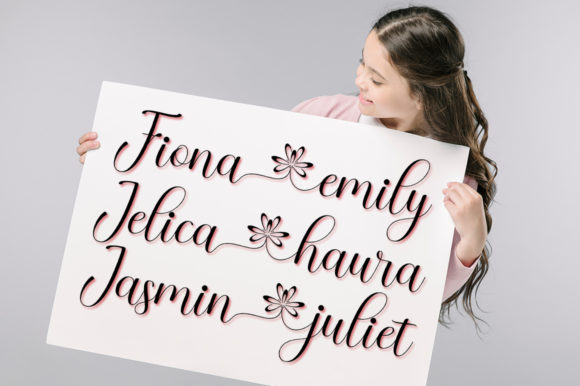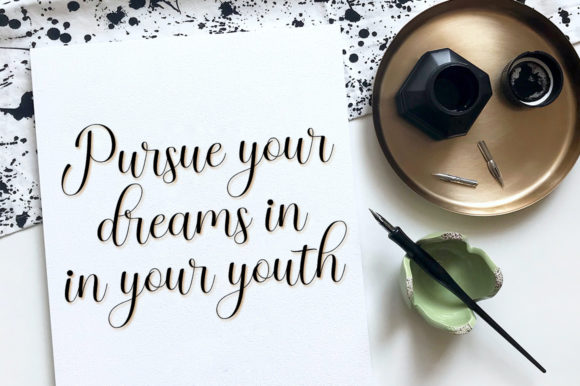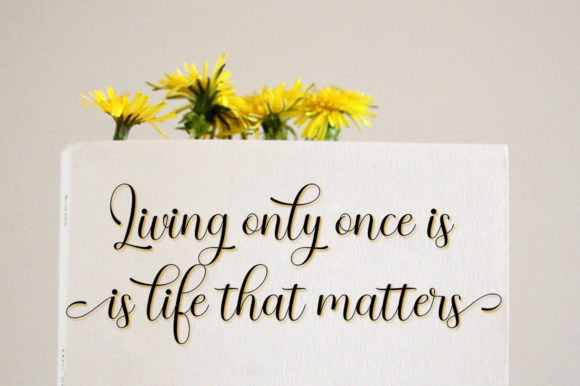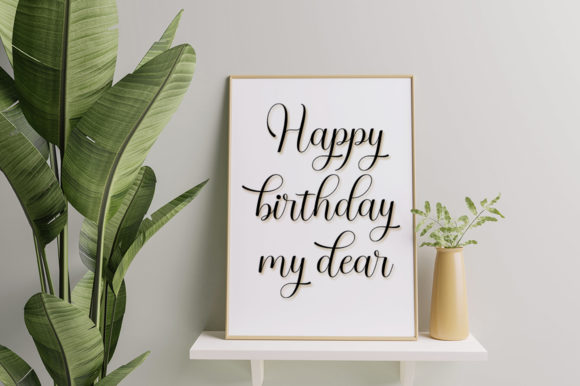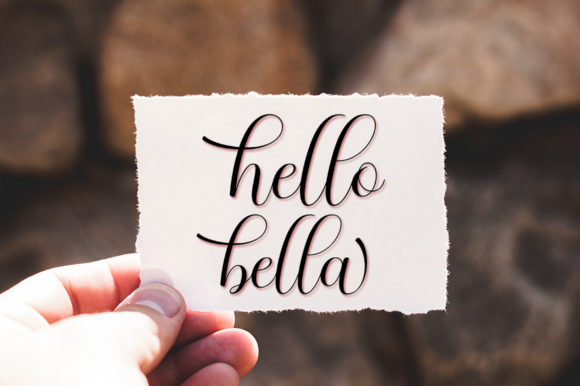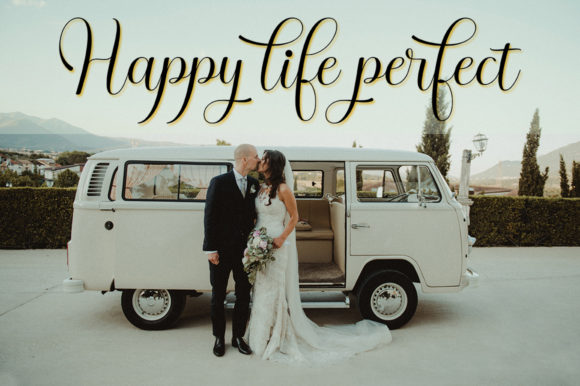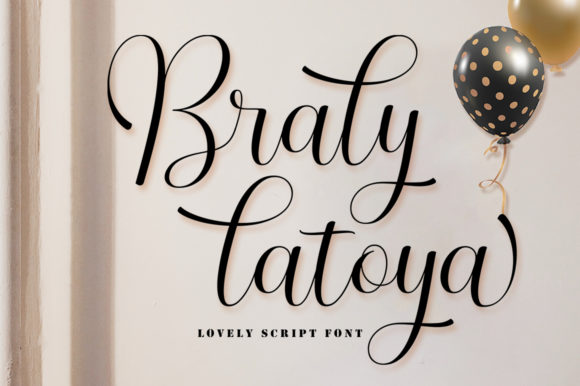
The Braly Latoya Font: A Delicate and Elegant Handwritten Masterpiece
Have you ever been in the middle of a design project, and suddenly, you just can’t seem to find the right font? I recall a particularly frustrating experience while working on a branding project for a boutique client. The logo needed to exude elegance and sophistication, but no matter how many fonts I tried, nothing seemed quite right. That’s when I stumbled upon the Braly Latoya font, and it was love at first sight! 💕
A Personal Review of Braly Latoya
As a designer, I’m always on the lookout for fonts that can elevate my projects. Here’s my honest review of Braly Latoya:
• ✨ Delicate and elegant handwritten style that’s perfect for projects requiring a touch of sophistication
• ✅ PUA encoded, making it easy to access all glyphs and swashes
• ✅ Well-rounded letters that add a touch of warmth to any design
• ✨ Highly versatile and can be used for a variety of projects, from branding to crafting
While Braly Latoya is an amazing font, there are a few things to keep in mind:
• ⚠️ Some users might find the font a bit too delicate for certain projects, such as large-scale signage or bold headlines
• 🤔 Limited availability of bold or condensed variations, which might limit its use in certain design scenarios
The Designer Inspiration Behind Braly Latoya
While the true story behind Braly Latoya’s creation is unknown, it’s easy to imagine that the designer was inspired by the beauty of handwritten script. Perhaps they spent countless hours pouring over vintage letters and typography, searching for the perfect blend of elegance and whimsy. Whatever the inspiration, Braly Latoya is a true masterpiece that deserves to be celebrated.
What is PUA encoding, and how does it benefit Braly Latoya? PUA (Private Use Area) encoding allows designers to access a wide range of glyphs and swashes, making it easier to customize and personalize their designs.
Is Braly Latoya suitable for large-scale signage or bold headlines? While Braly Latoya is a beautiful font, it may not be the best choice for large-scale signage or bold headlines due to its delicate nature. However, it can still be used effectively in these contexts with careful consideration and creative styling.